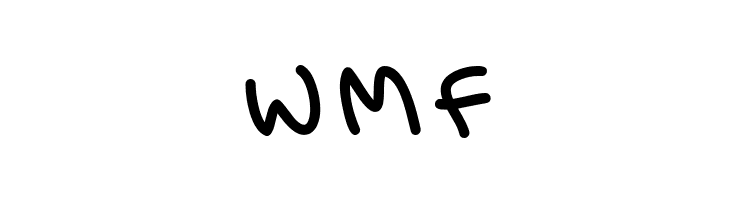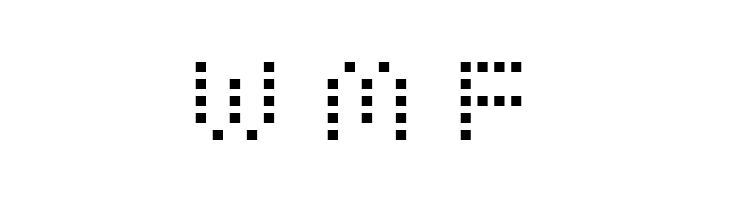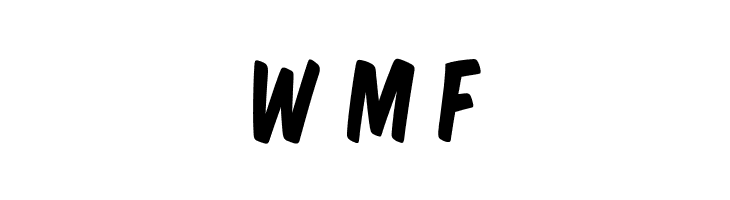
A futuristic, segmented font with bold, horizontal stripes.
A futuristic, striped font with a digital and high-tech appearance.
A pixelated, grid-based font with a retro digital aesthetic.
A bold, playful font with rounded, hand-drawn style strokes.
A bold, embossed-style font with a retro, industrial feel.
A pixelated, retro-style font reminiscent of early digital displays.
A whimsical and decorative font featuring cartoon-like characters and creatures.
A dot-based, pixelated font with a retro digital style.
A futuristic, pixelated font with a digital, geometric design.
A decorative font with bold outlines and star-like embellishments.
A playful, star-patterned font with a pixelated, decorative style.
A playful, dotted font with a whimsical and textured appearance.
A bold, geometric font with angular, digital-inspired letterforms.
A modern, dotted font with a digital, pixelated style.
A modern dot matrix font with a pixelated, digital display style.
A pixelated, retro-style font with a blocky, geometric design.
A pixelated, blocky font with a retro digital aesthetic.
A playful, dotted font with geometric consistency and a dynamic appearance.
A bold, playful font with a bubbly, cartoonish style.
A playful, dotted font with interconnected circular characters.
A modern, geometric font with rounded edges and a clean, minimalistic design.